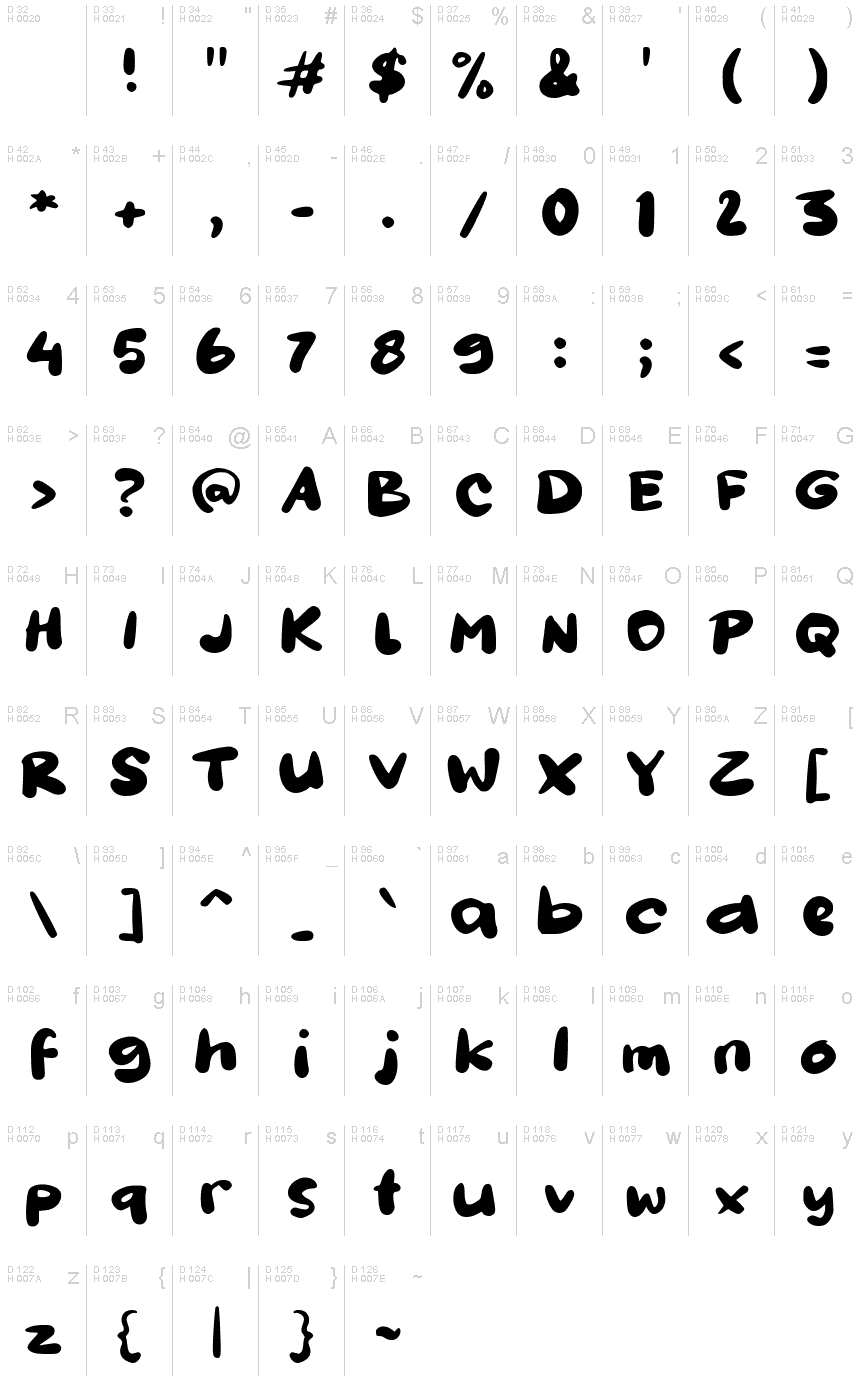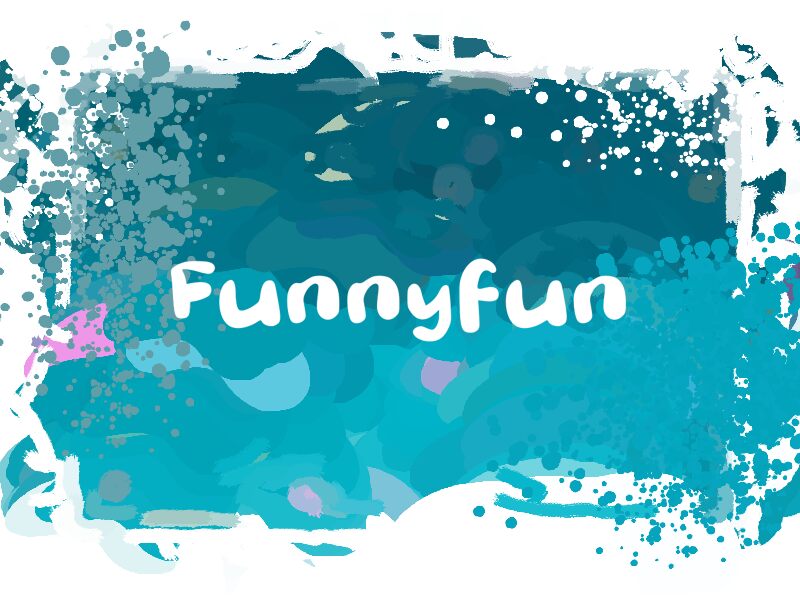
Funnyfun
Funnyfun, a whimsical creation by wep, is a vibrant display font that brings joy to any project.
With its cartoon-style design and extra-bold weight, Funnyfun adds a playful touch to children's books, animated films, and toy packaging. Its semi-expanded width ensures readability while maintaining a lively appearance. Whether you're designing greeting cards or creating bold headlines for websites, Funnyfun will infuse your work with laughter and delight.
Let this font unleash your creativity and inject fun into every design endeavor.